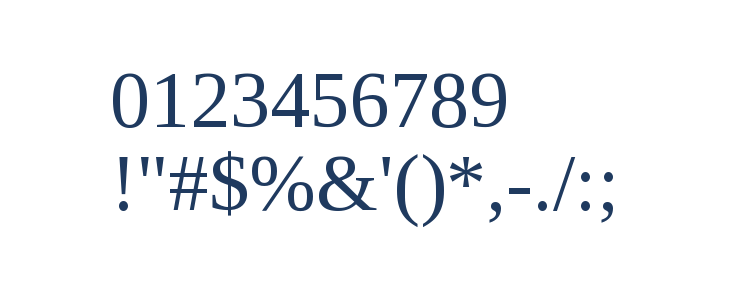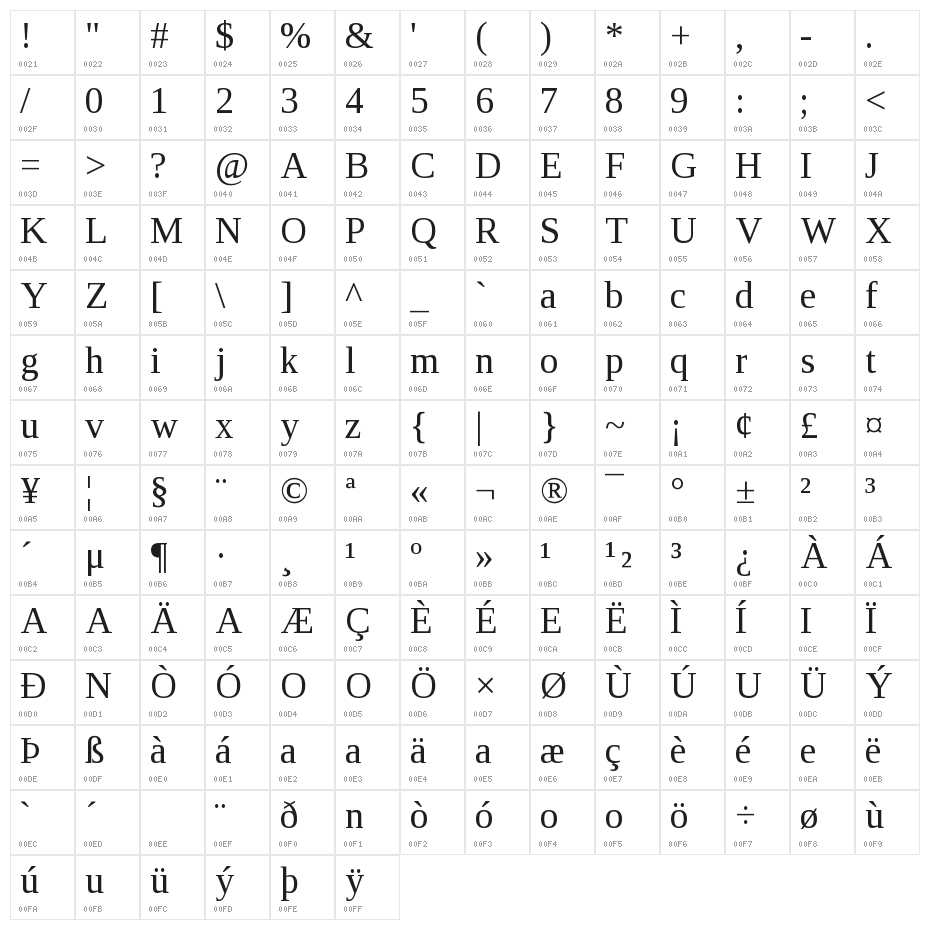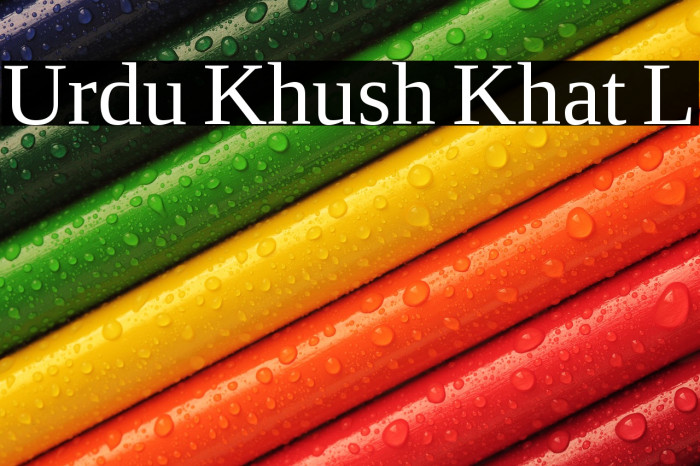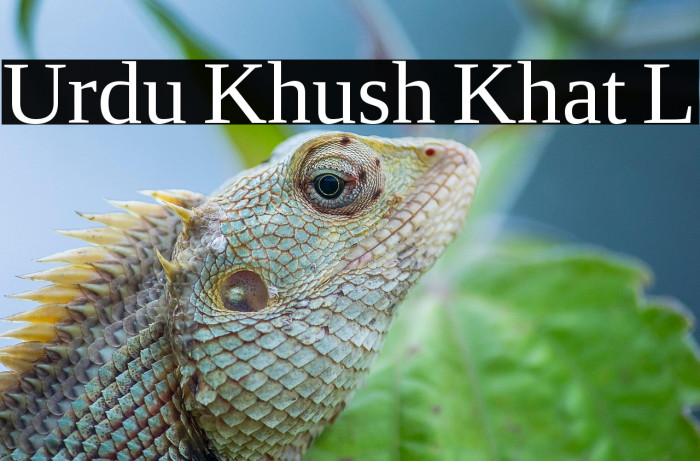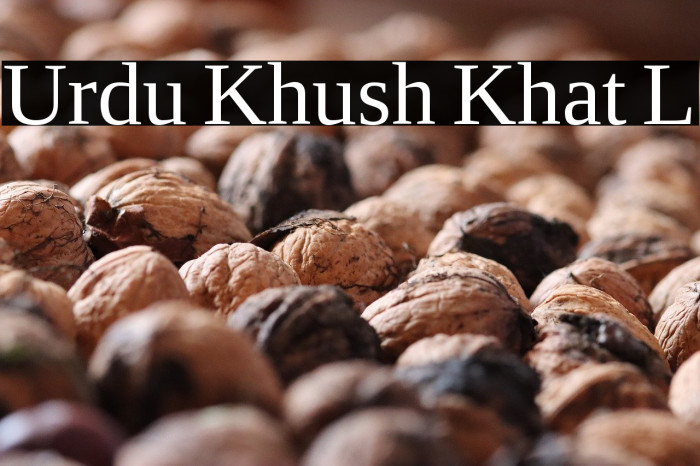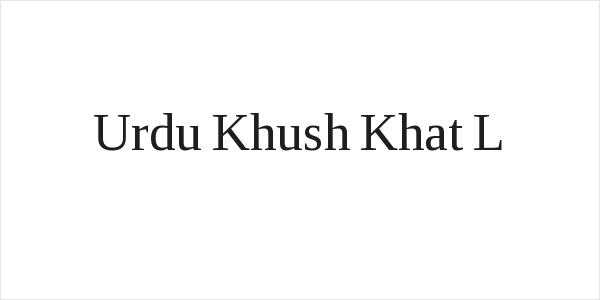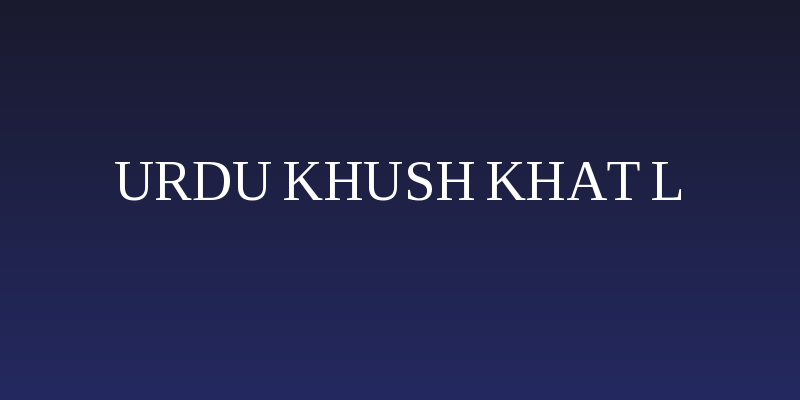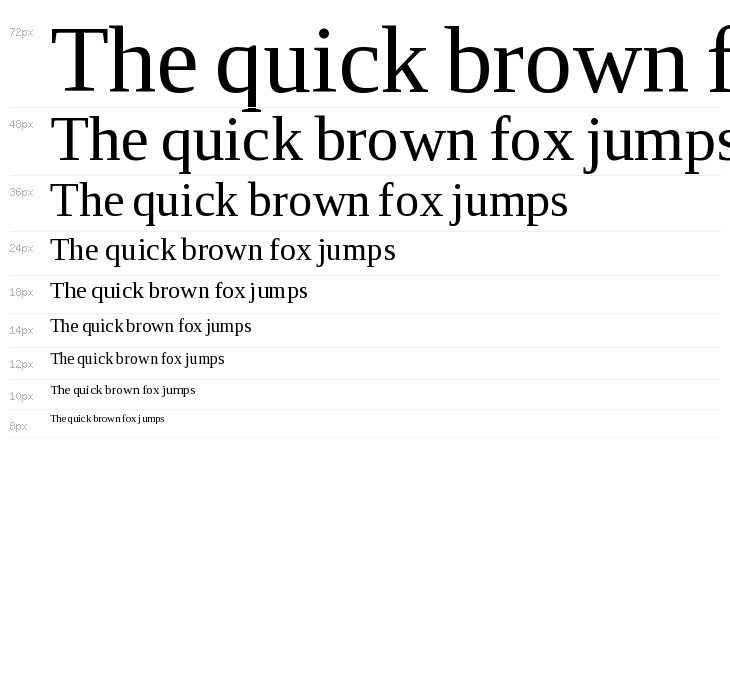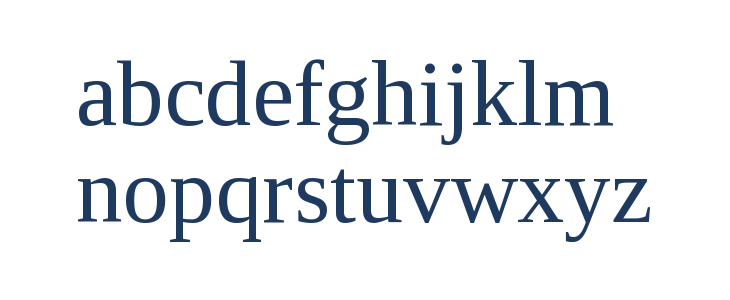
Urdu Khush Khat L Font
Urdu Khush Khat L Description
This font exhibits a classic serif style with a balanced and elegant appearance. The uppercase letters are bold and commanding, while the lowercase letters maintain a refined and sophisticated look. The numerals are clear and distinct, making them suitable for both formal and informal settings. Special characters are well-integrated, ensuring versatility across various applications. The overall design is timeless, making it suitable for a wide range of projects that require a touch of elegance and readability.